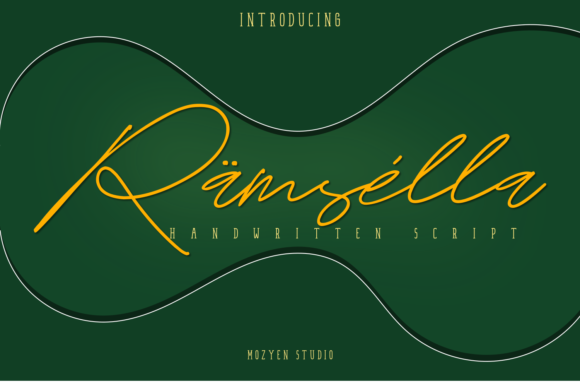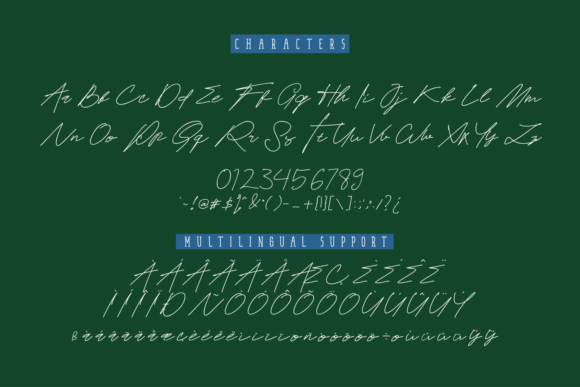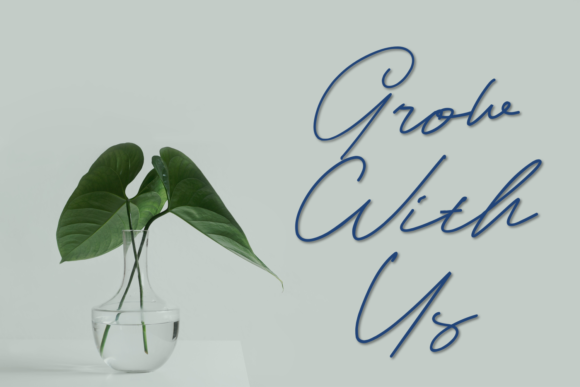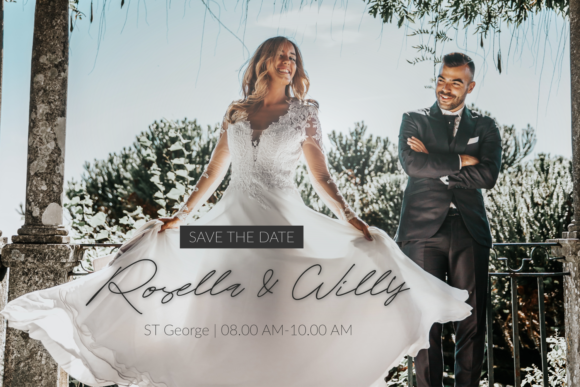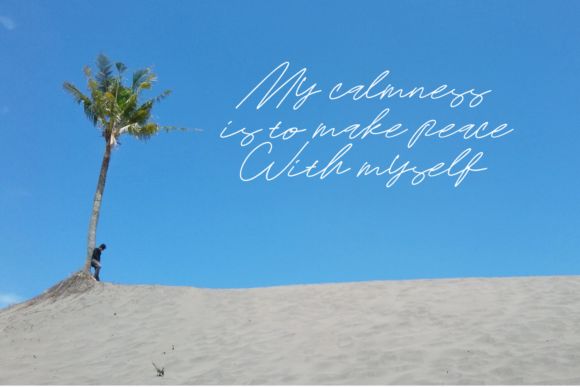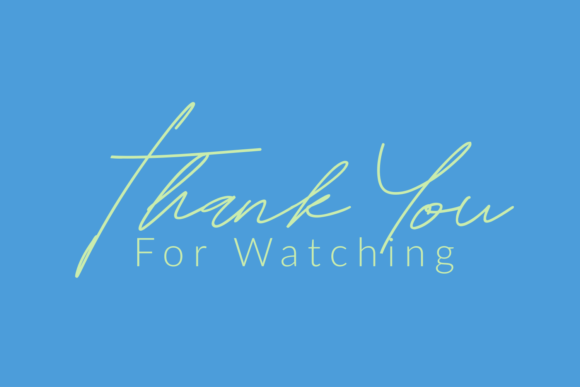
Introduction to Ramsella Font
Ramsella is an extraordinary and elegantly drawn script font that will turn any design project into a true standout.
Key Features of Ramsella Font